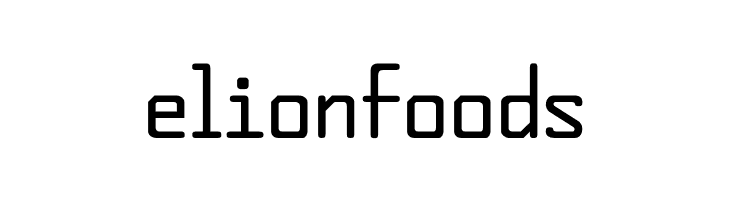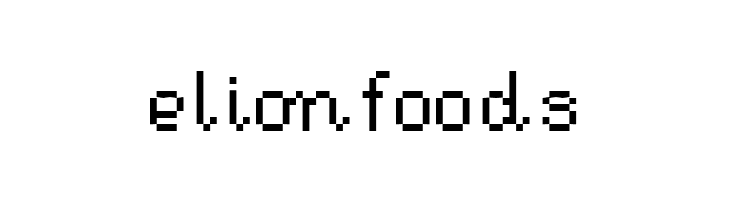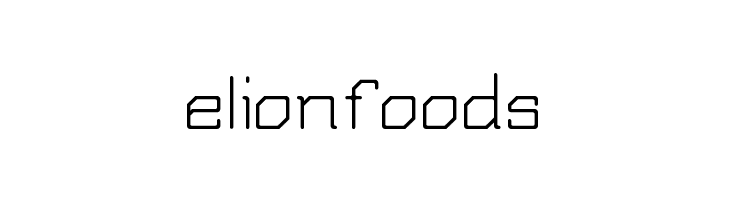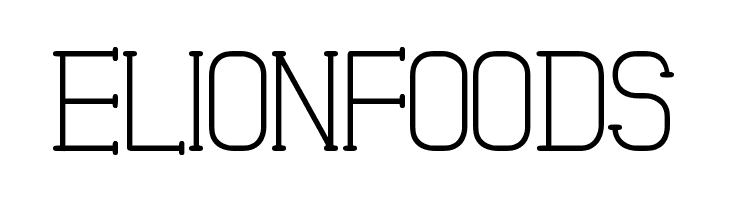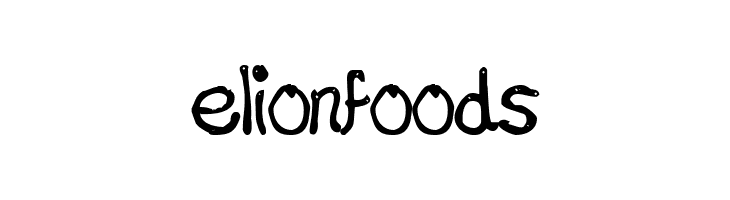
A geometric, monospaced font with clean lines and uniform character width.
A modern, geometric font with a clean, monospaced appearance.
A pixelated, monospaced font with a retro digital aesthetic.
A geometric, monospaced font with a modern, technical style.
A modern, geometric font with a monospaced appearance and consistent stroke width.
Retro, monospaced font with rounded corners and a digital feel.
A playful, bold, hand-drawn font with decorative dots and wide spacing.
A monospaced font with a clean, geometric style, ideal for technical use.
A geometric, monospaced font with bold strokes and rounded edges.
A bold, monospaced font with uniform strokes and clear readability.